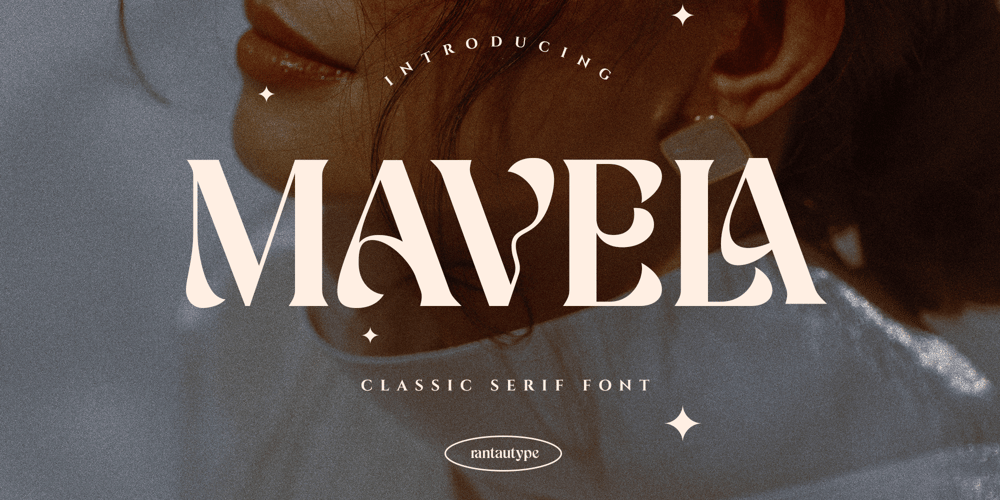
Mavela
Mavela font
Mavela Font Family was designed by Yudi Pratama Chandra and published by RantauType. Mavela contains 2 styles and family package options. Mavela is a unique display serif font that embraces classic and nineteen vibes. Its delicate curves and refined details create a sense of A flirtatiously charming 80’s retro-inspired. Mavela bringing retro back into the 21st century to branding, editorial designs, and more. With its versatility and contemporary appeal.Mavela is a beautiful choice for any creative endeavor, chic, lifestyle design such as logos, title, cover, branding, display, magazine and more. Now you have more choice when using mavela for typography.Features: Standar letter A-Z and a-z Numberial and Functional Alternate and Ligature Works on PC & Mac Simple installations Accessible in Adobe Illustrator, Adobe Photoshop, Adobe InDesign, even work on Microsoft Word. Fonts include Multilingual Support for: Afrikaans, Albanian, Asu, Basque, Bemba, Bena, Breton, Chiga, Cornish, Dutch, English, Estonian, Filipino, Finnish, Friulian, Galician, Gusii, Indonesian, Irish, Italian, Kabuverdianu, Kalenjin, Kinyarwanda, Luo, Luxembourgish, Luyia, Machame, Makhuwa-Meetto, Makonde, Malagasy, Manx, Morisyen, North, Ndebele, Nyankole, Oromo, Portuguese, Quechua, Romansh, Rombo, Rundi, Rwa, Samburu, Sango, Sangu, Scottish, Gaelic, Sena, Shambala, Shona, Soga, Somali, Spanish, Swahili, Swedish, Swiss, German.Thank you for your purchase!Hope you enjoy with our font!